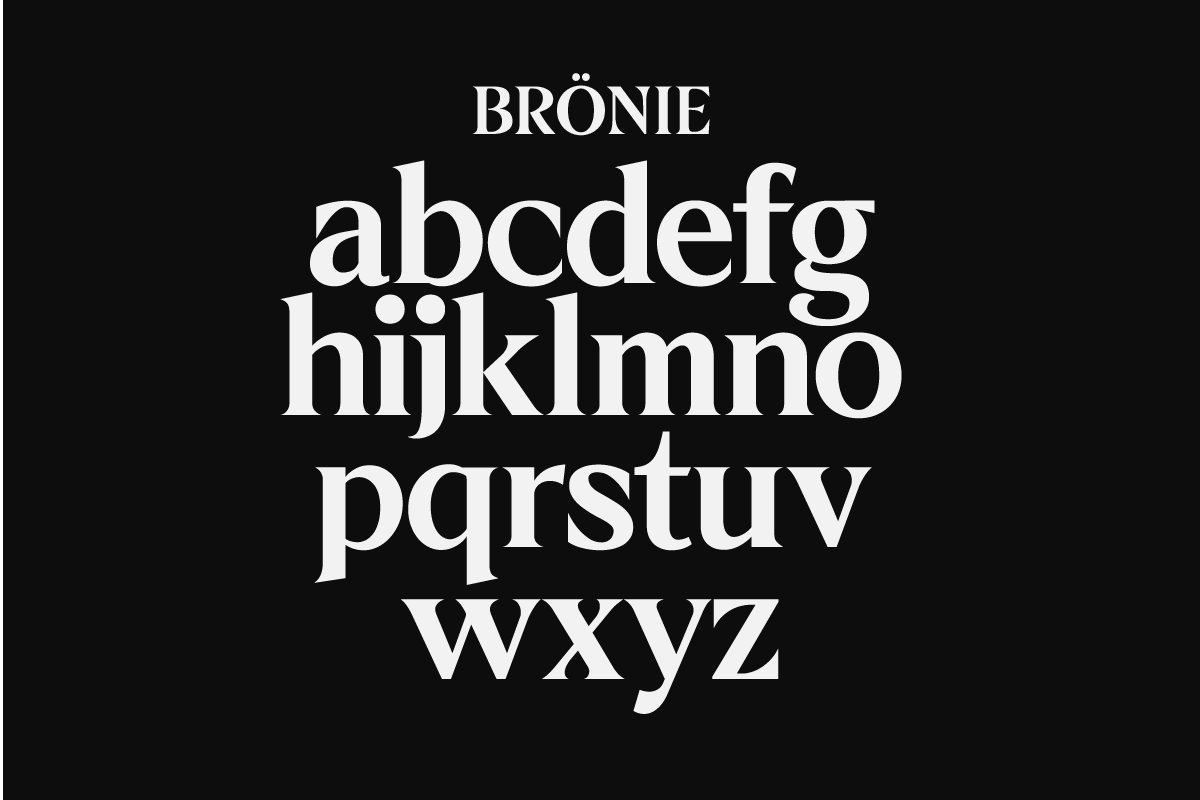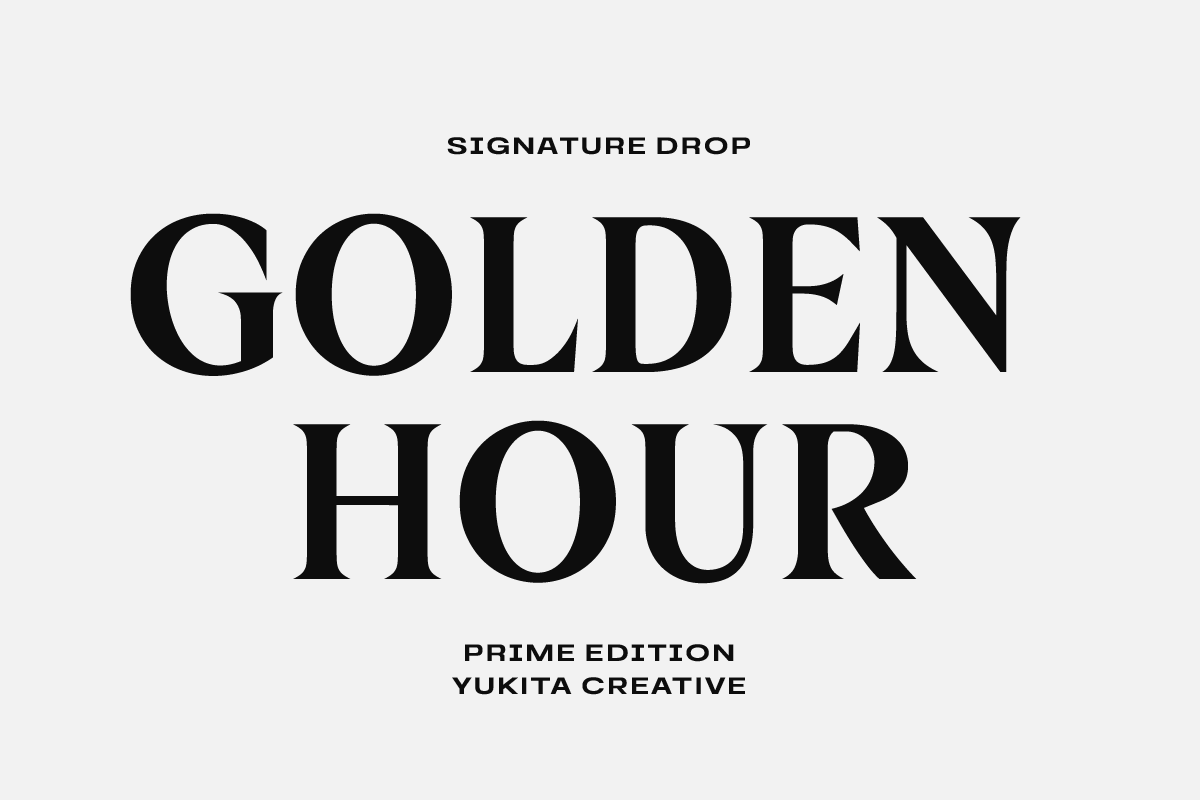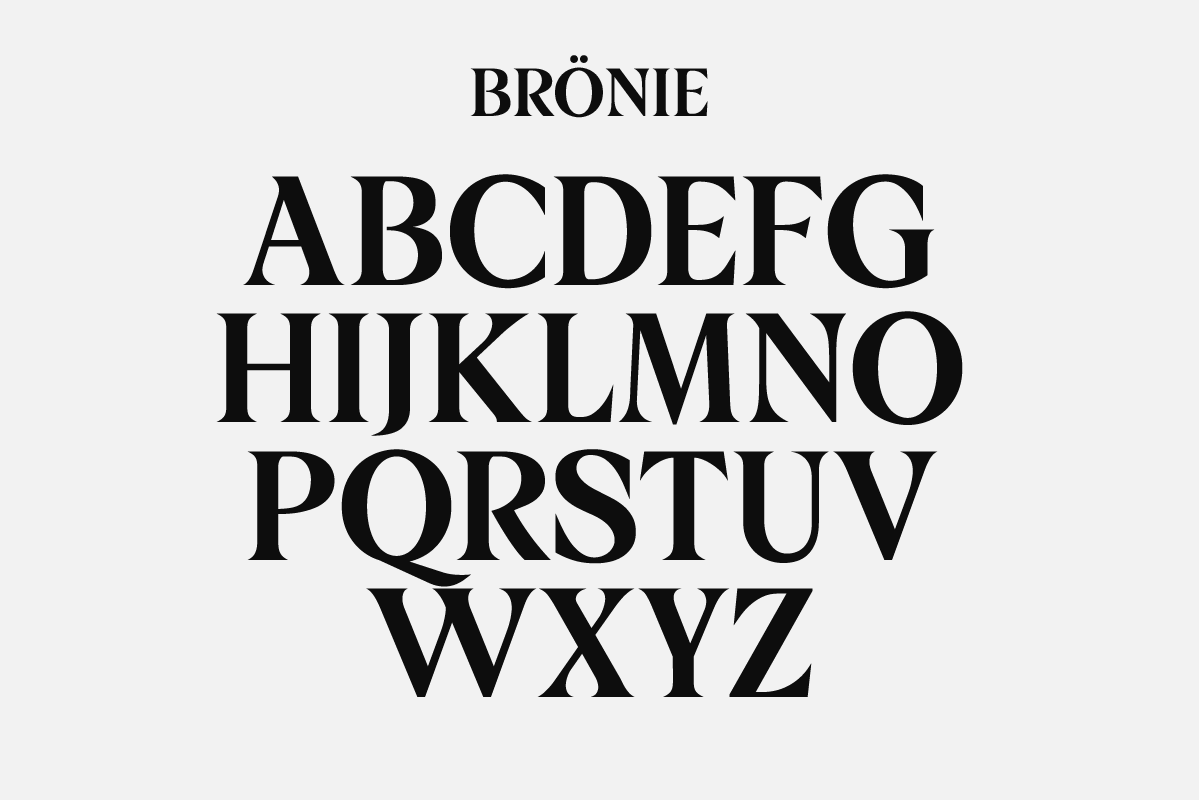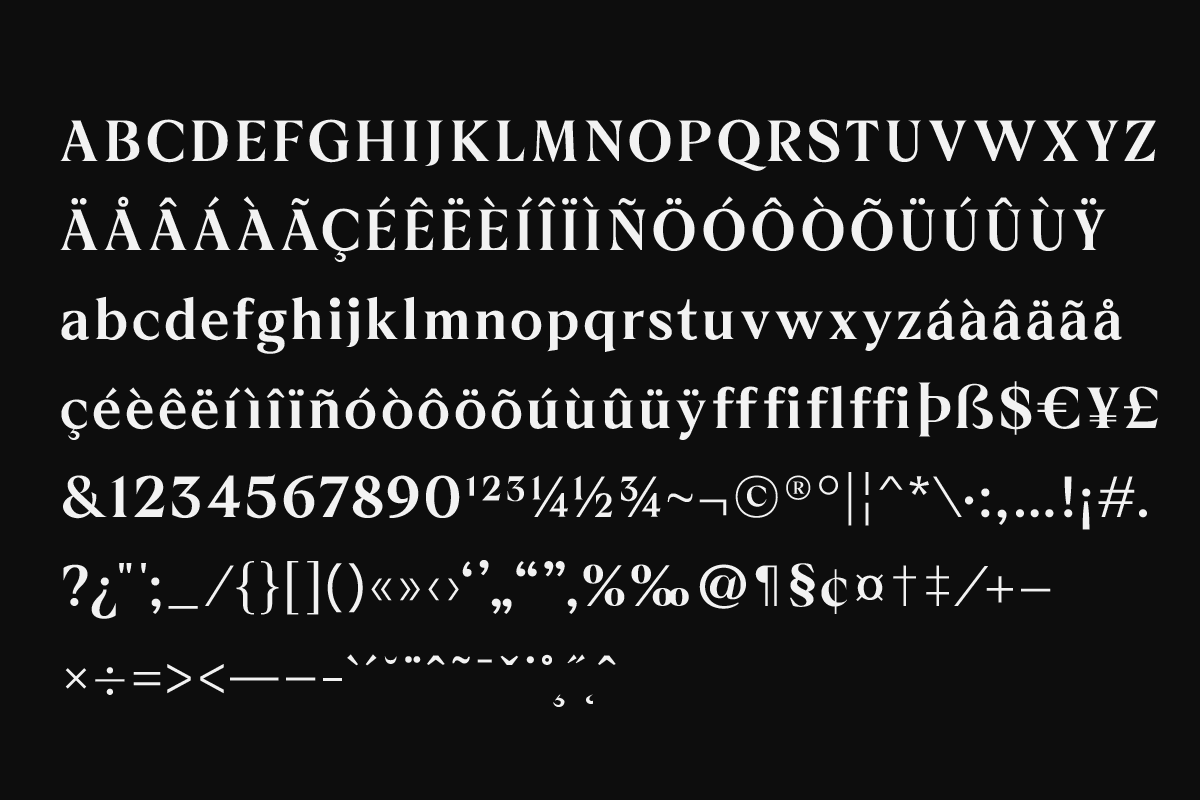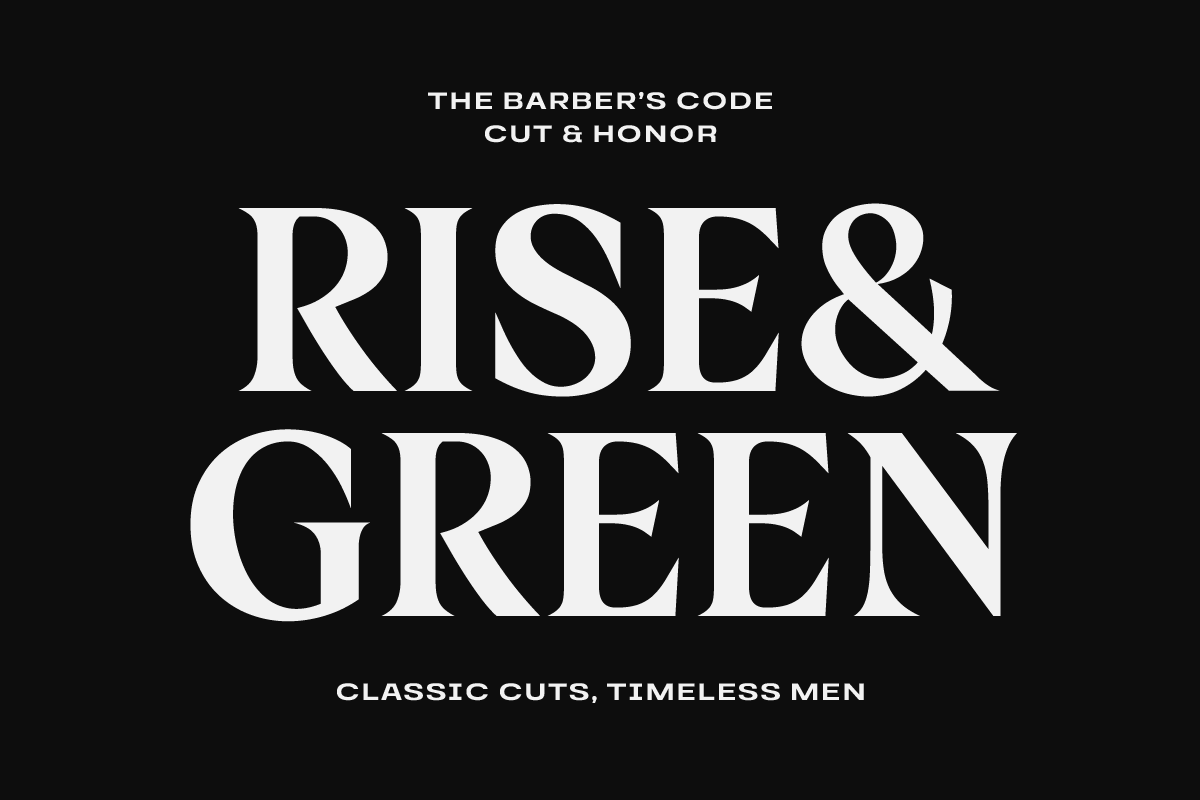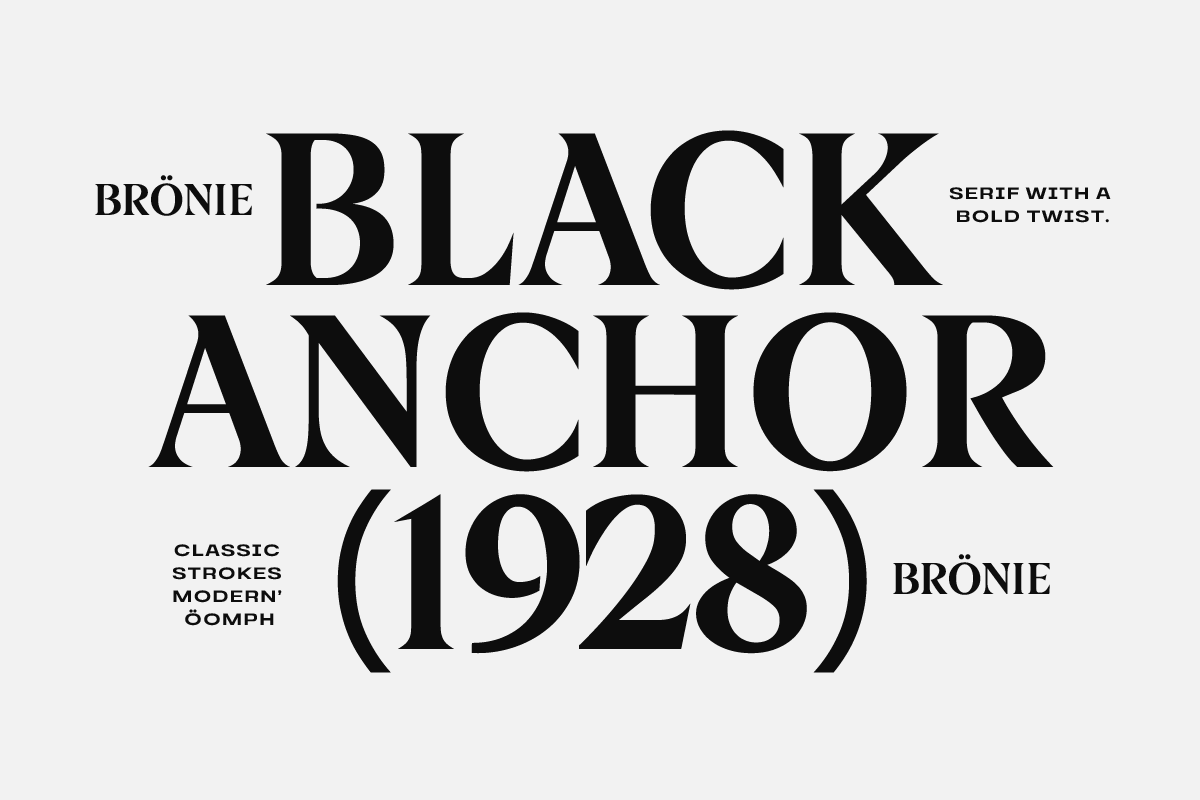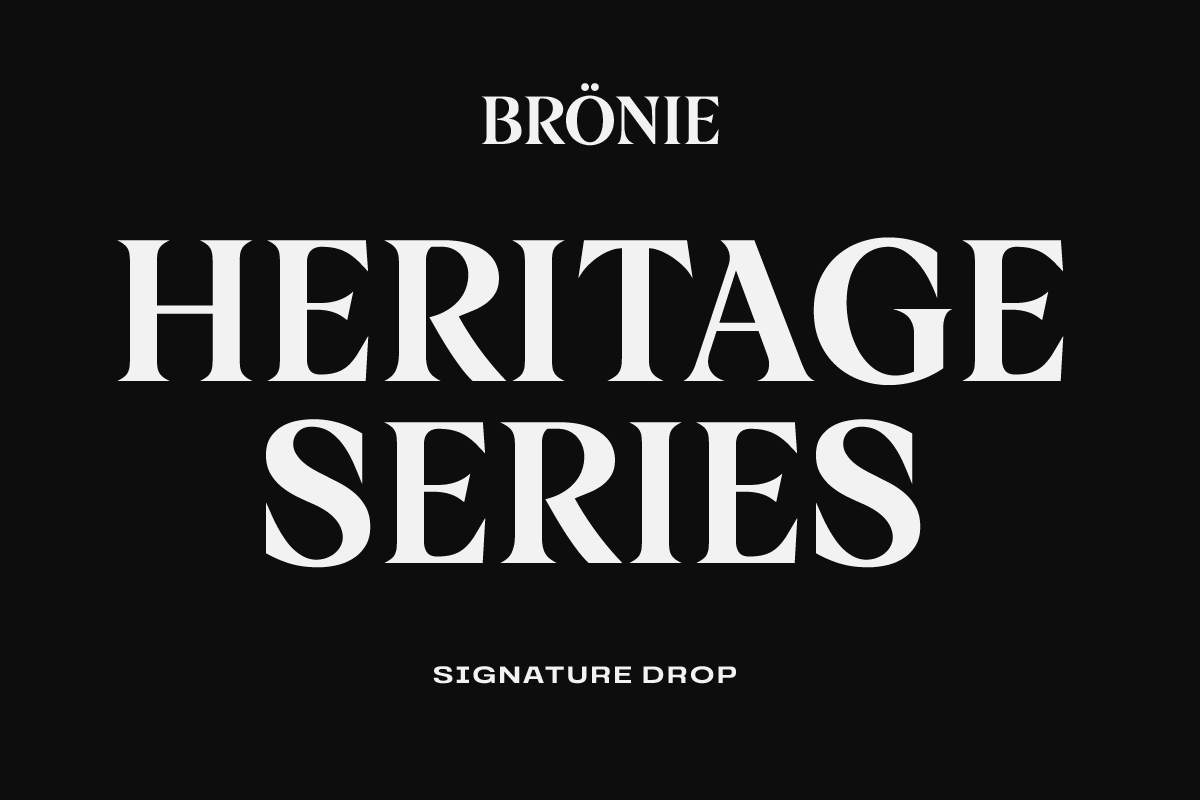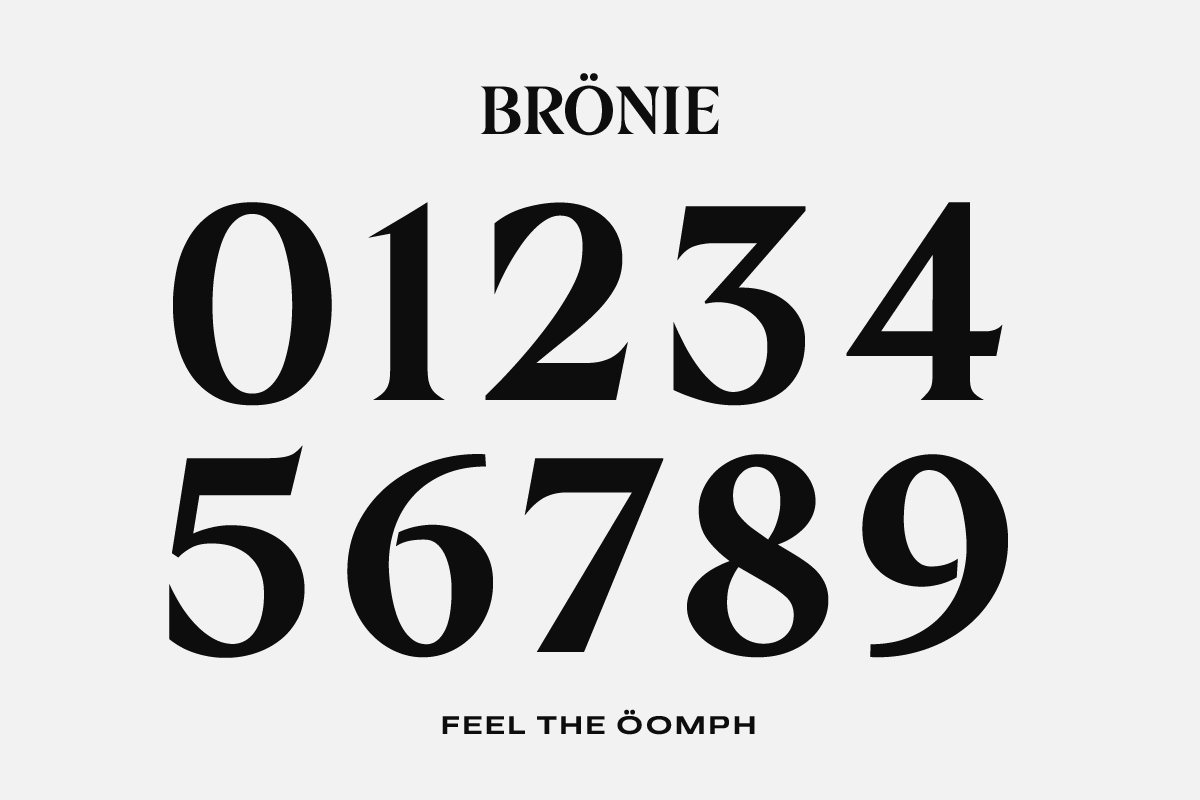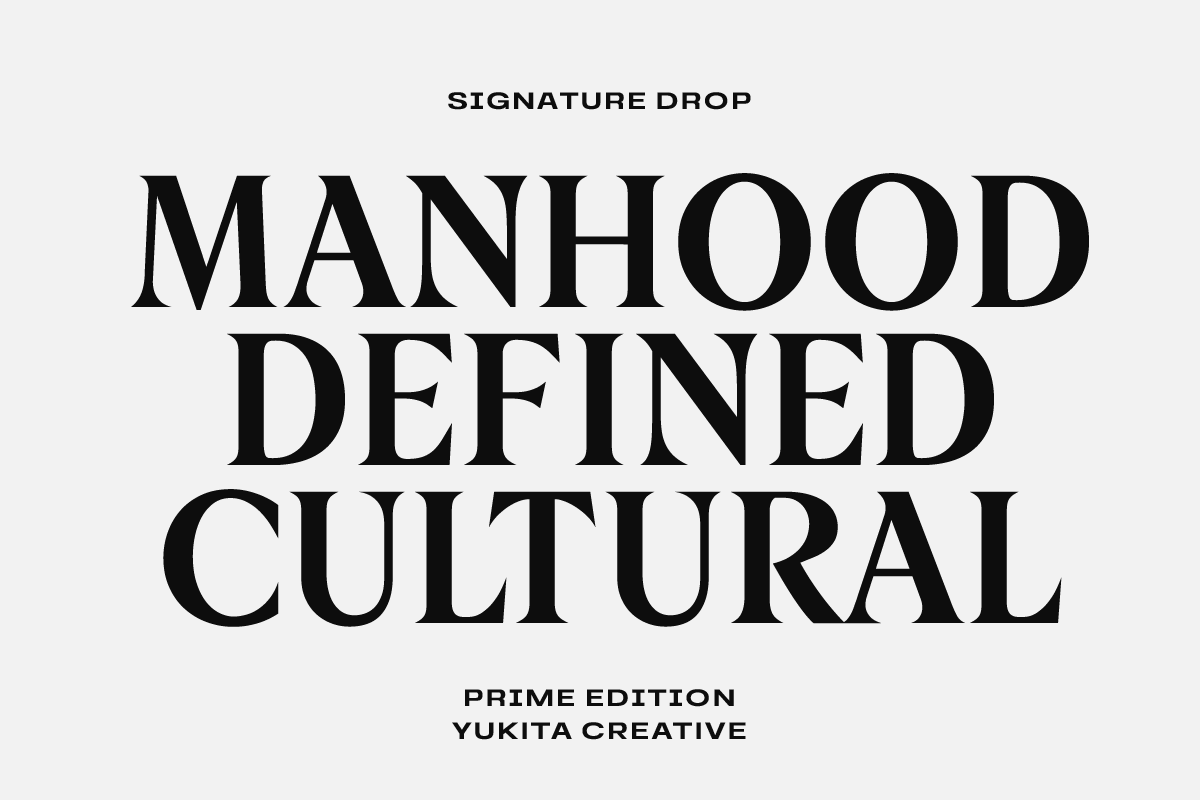
Bronie – Classic Serif
Bronie is a timeless serif font that combines classic elegance with modern simplicity. Designed with clean lines and well-balanced proportions, Bronie offers a refined and versatile look that suits a wide range of design needs. Whether you’re working on branding, editorial layouts, logos, wedding invitations, or product packaging, Bronie adds a touch of sophistication and professionalism.
Its smooth curves and subtle details make Bronie easy to read, while the classic serif structure ensures it stands out in both print and digital designs. Perfect for designers seeking a minimalist yet classy typeface.